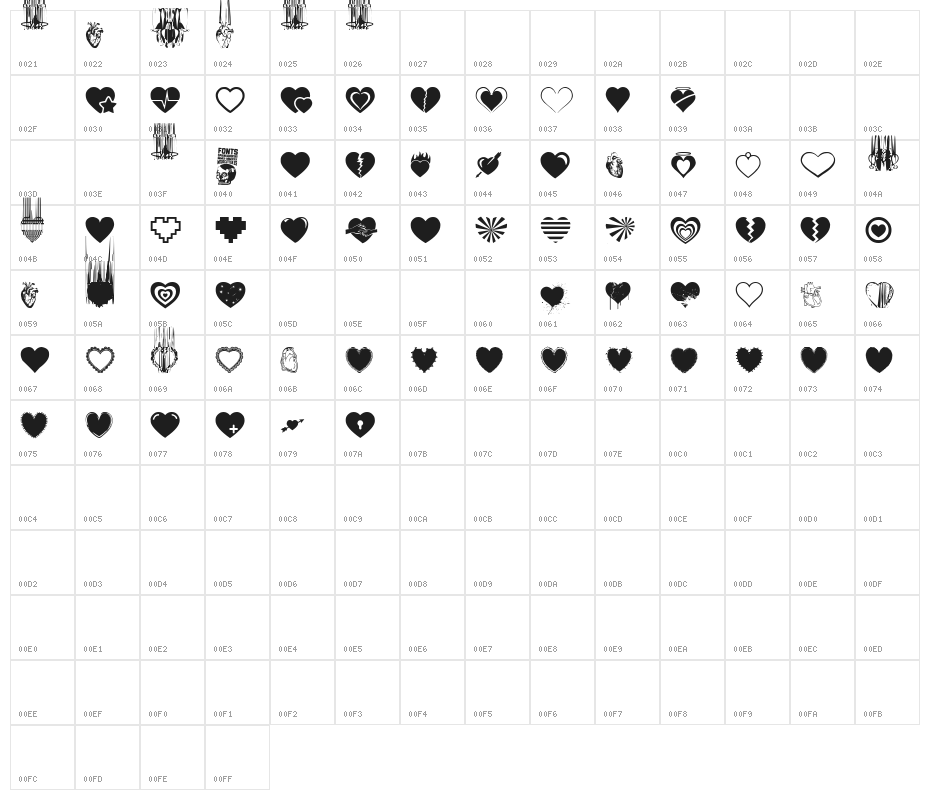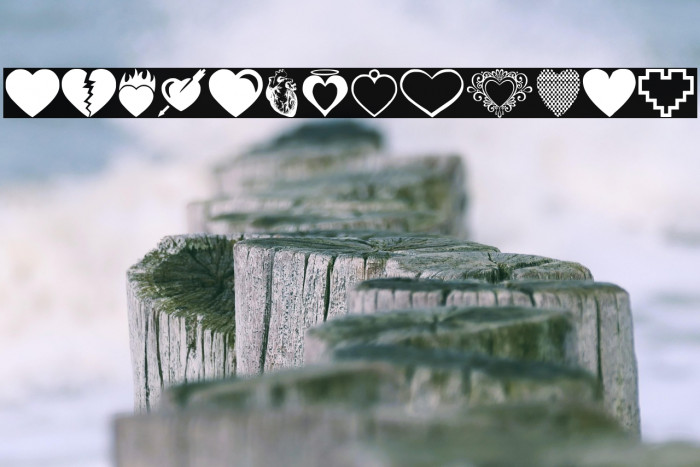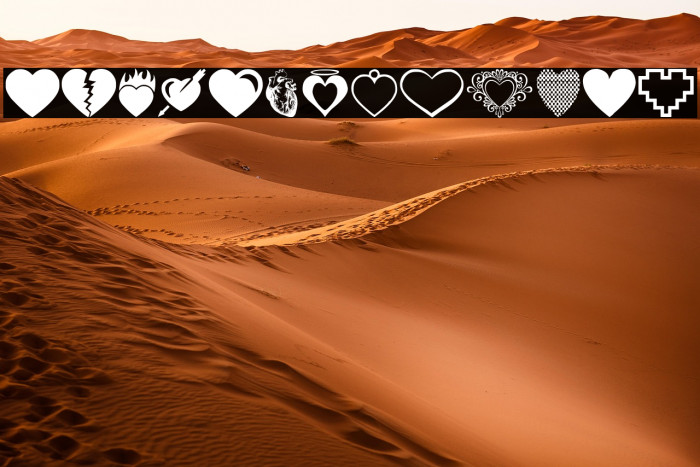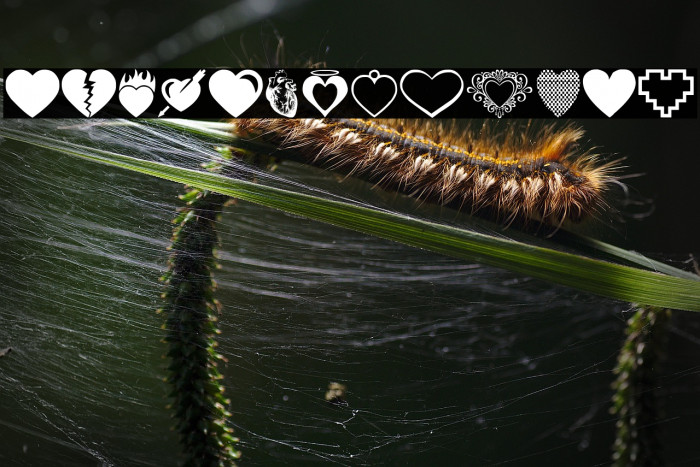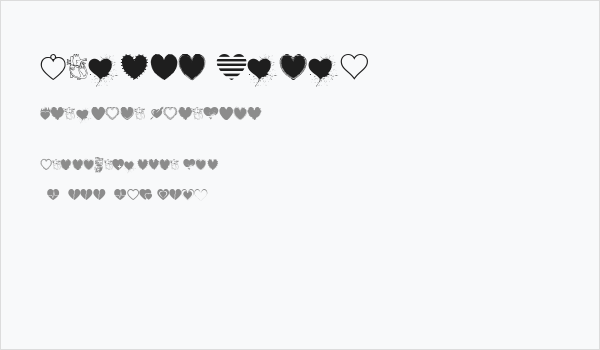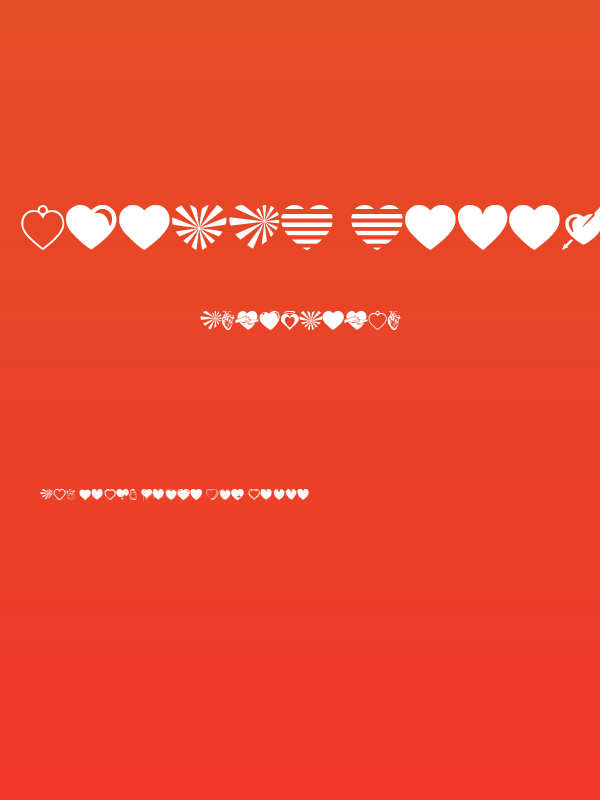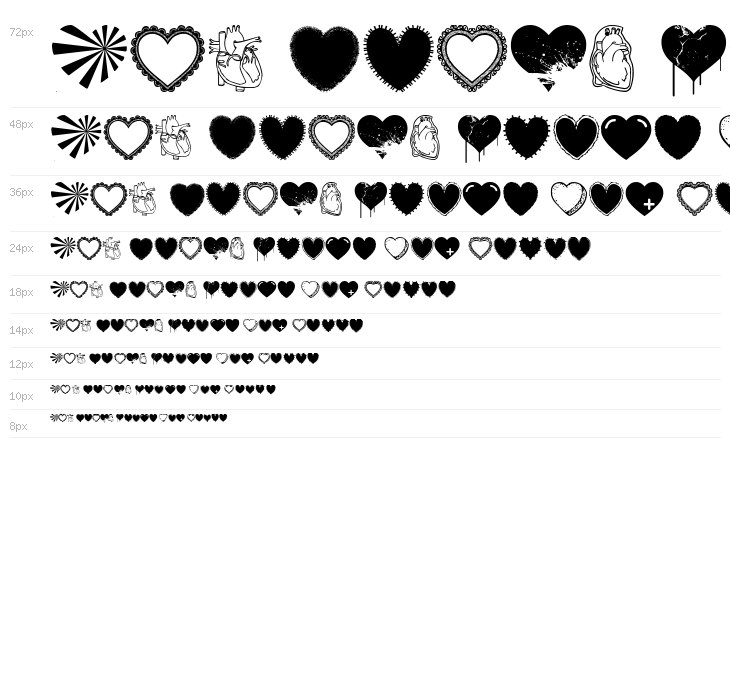
Hearts Salad Font
Hearts Salad Description
This collection features a diverse array of heart-themed symbols, each with unique artistic elements. The designs range from classic heart shapes to more intricate patterns, including broken hearts, anatomical hearts, and stylized variations with textures and embellishments. Some hearts are adorned with wings, flames, or halos, while others incorporate elements like arrows, stars, and keys. The variety in design offers a playful and creative approach to the heart symbol, making it suitable for various artistic and decorative purposes.
| Use Case | Logos, Decorative art, Themed graphics |
| Proposed Projects | Ideal for Valentine's Day cards, wedding invitations, romantic-themed graphics, and decorative art projects. |